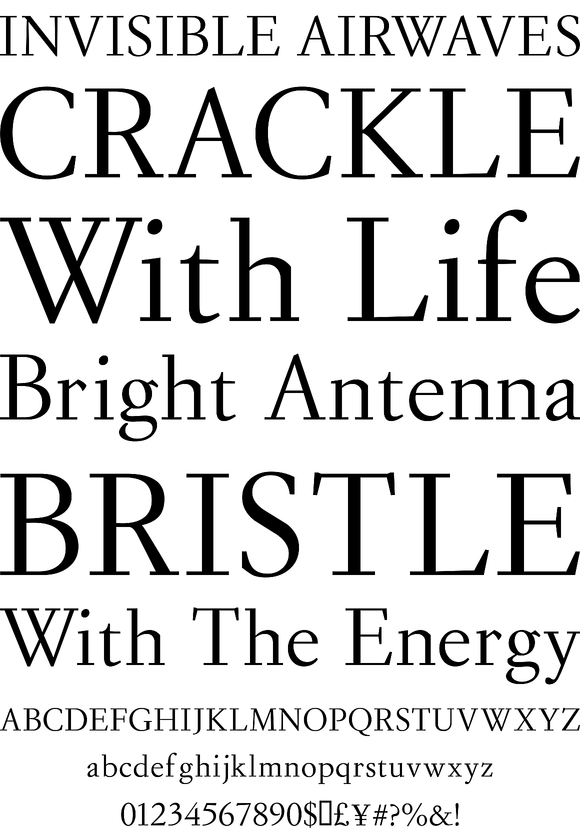
Steinburg Modern
Steinburg Modern™ is largely a variation on a Garamond-styled typeface with differences in some character designs and in the overall character proportions. In addition, the curved brackets that were a distinctive part of Garamond's 16th century design are perhaps the most noticable "missing" design element. In the Steinburg Modern™, the "Modern" serifs are square, and give it a distinguished and clean look, even better appreciated when the font is set at larger point sizes.
More liberties have been taken with the italic versions, with the addition of a few mini-swashes and assorted other stylings. The angle of the italic was deliberately minimized to allow for more pleasing readibility.
ITALIC AND OBLIQUE
Because setting type with true italics does not always produce the desired effect, we have also included 2 Oblique fonts for use in place of the Italics. The Oblique fonts look fabulous for headers or footers at small point sizes.
STEINBURG MODERN™ "st" LIGATURES
FULL CHARACTER SET
Each font in the Steinburg Modern™ family has a full character set of 232+ letterforms, with all characters designed in the style of the font.